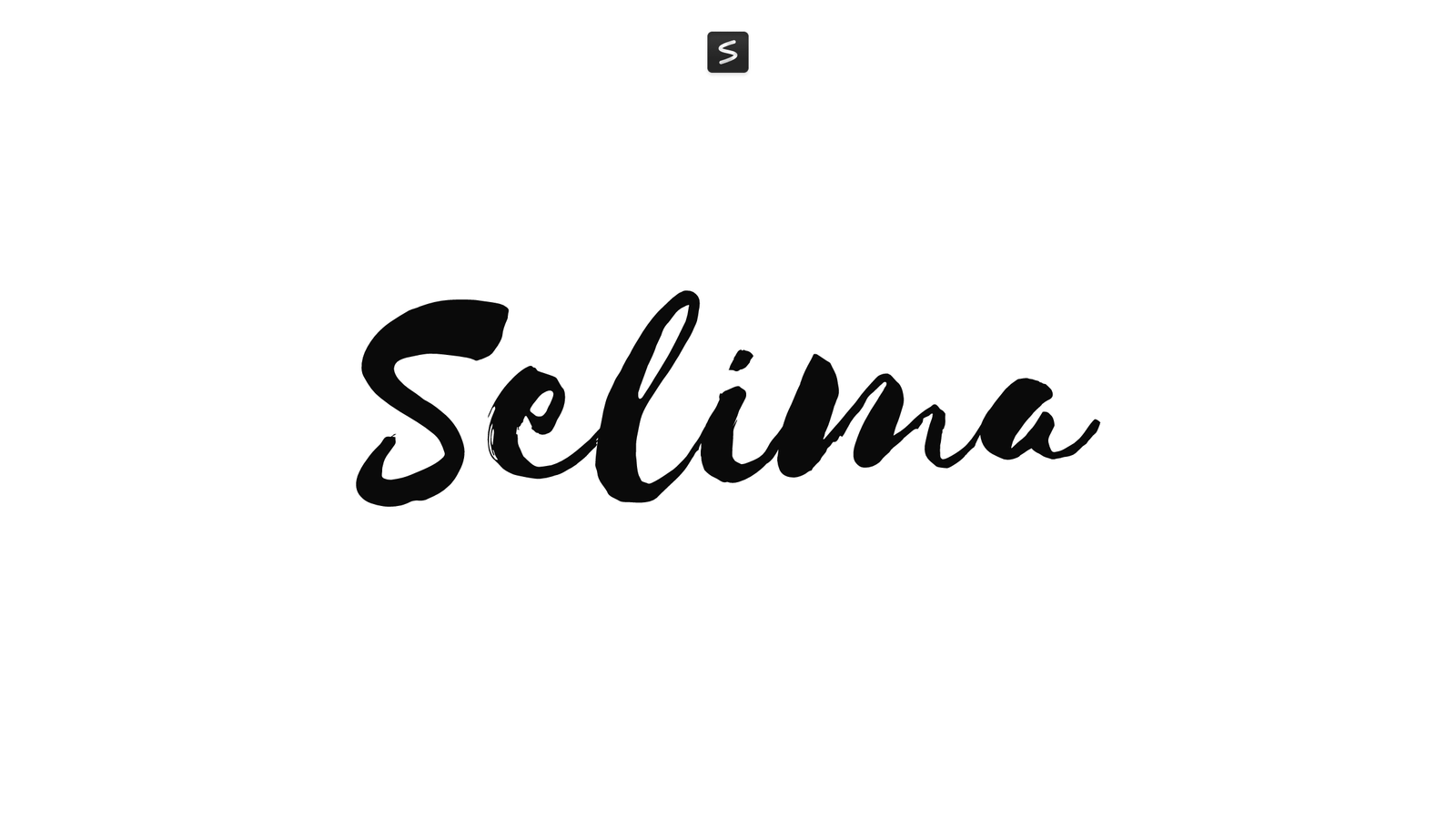
Selima is a handwriting font designed by Jroh Creative. It has a flowing, organic quality that feels natural and personal, with letters that lean slightly and connect in a loose, cursive manner. The letterforms are smooth and rounded, giving it a friendly and approachable character while maintaining enough clarity for use in headings and display settings.
This font works well for projects that benefit from a human touch: invitations, greeting cards, branding for creative businesses, social media graphics, and editorial headers. Its casual elegance sits somewhere between a sketch and refined penmanship, making it versatile enough to feel at home in both playful and more sophisticated contexts.
Selima is a solid choice when you need handwritten warmth without sacrificing legibility.